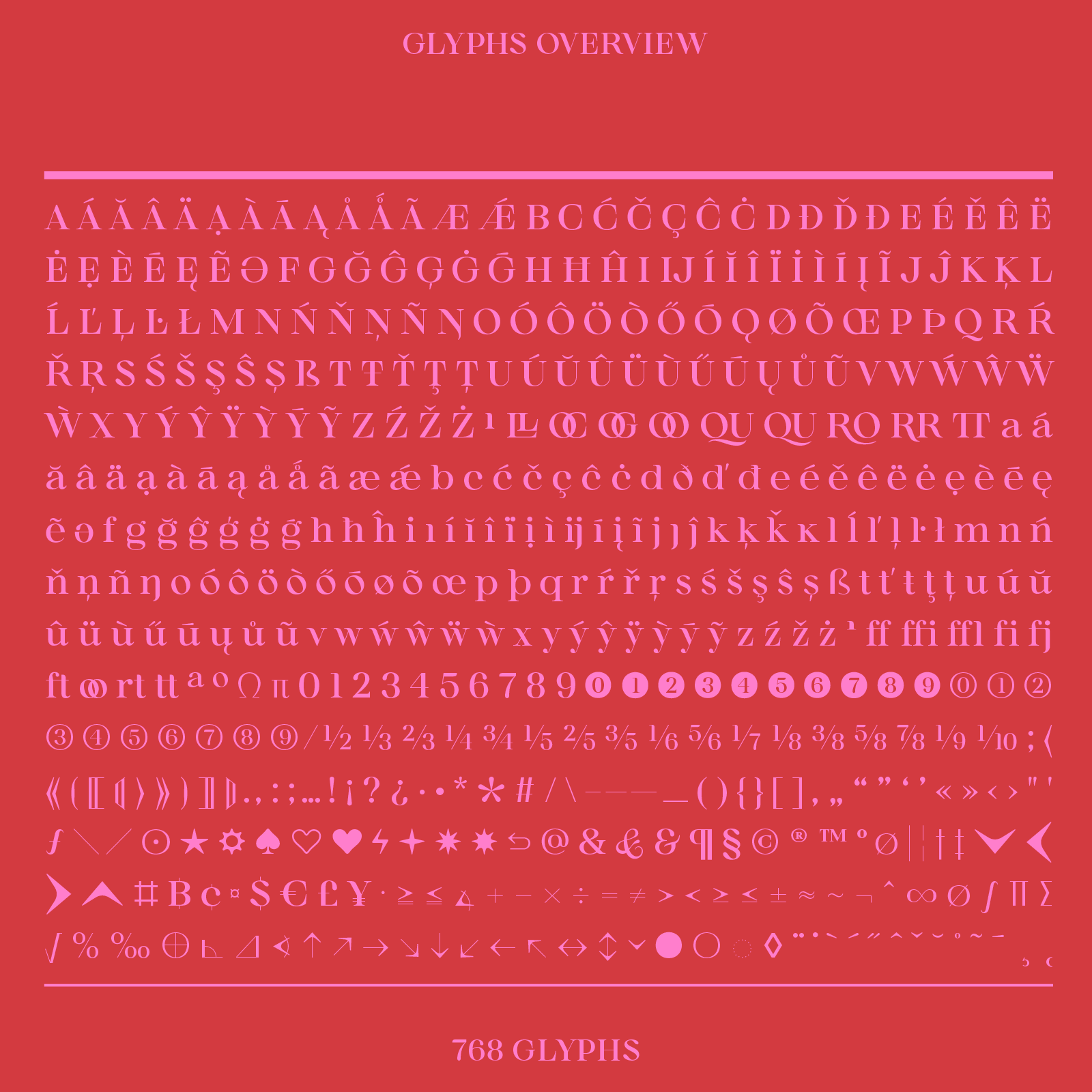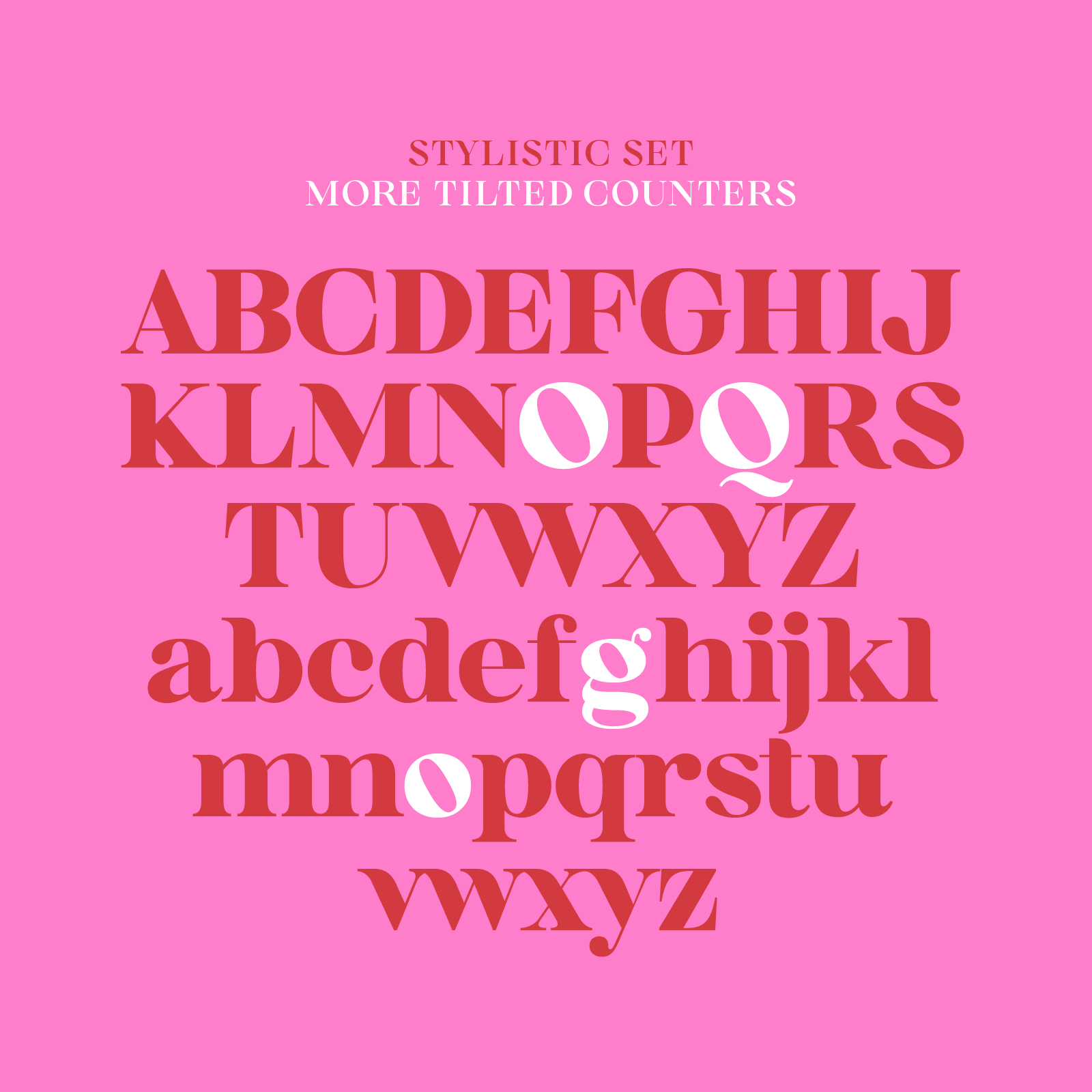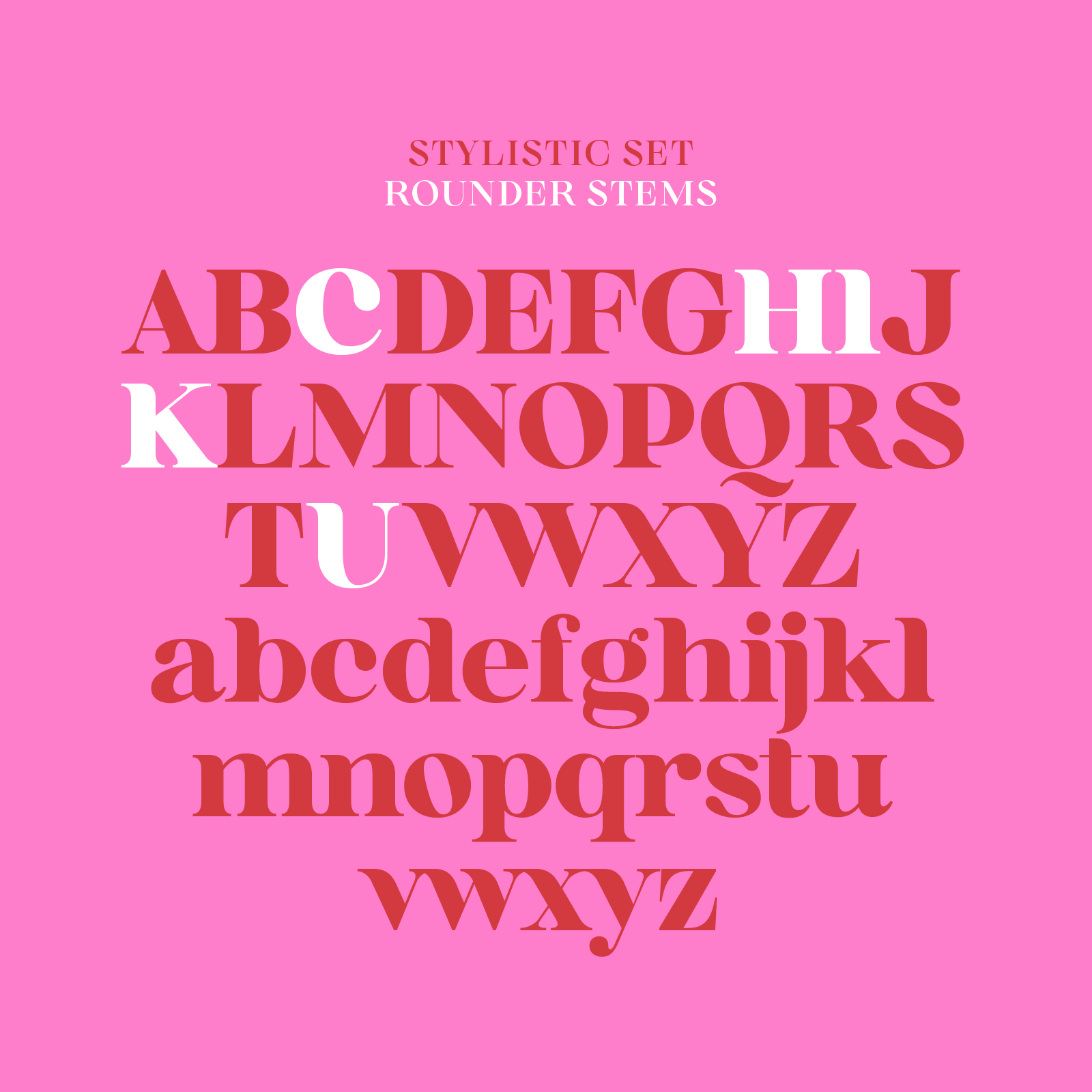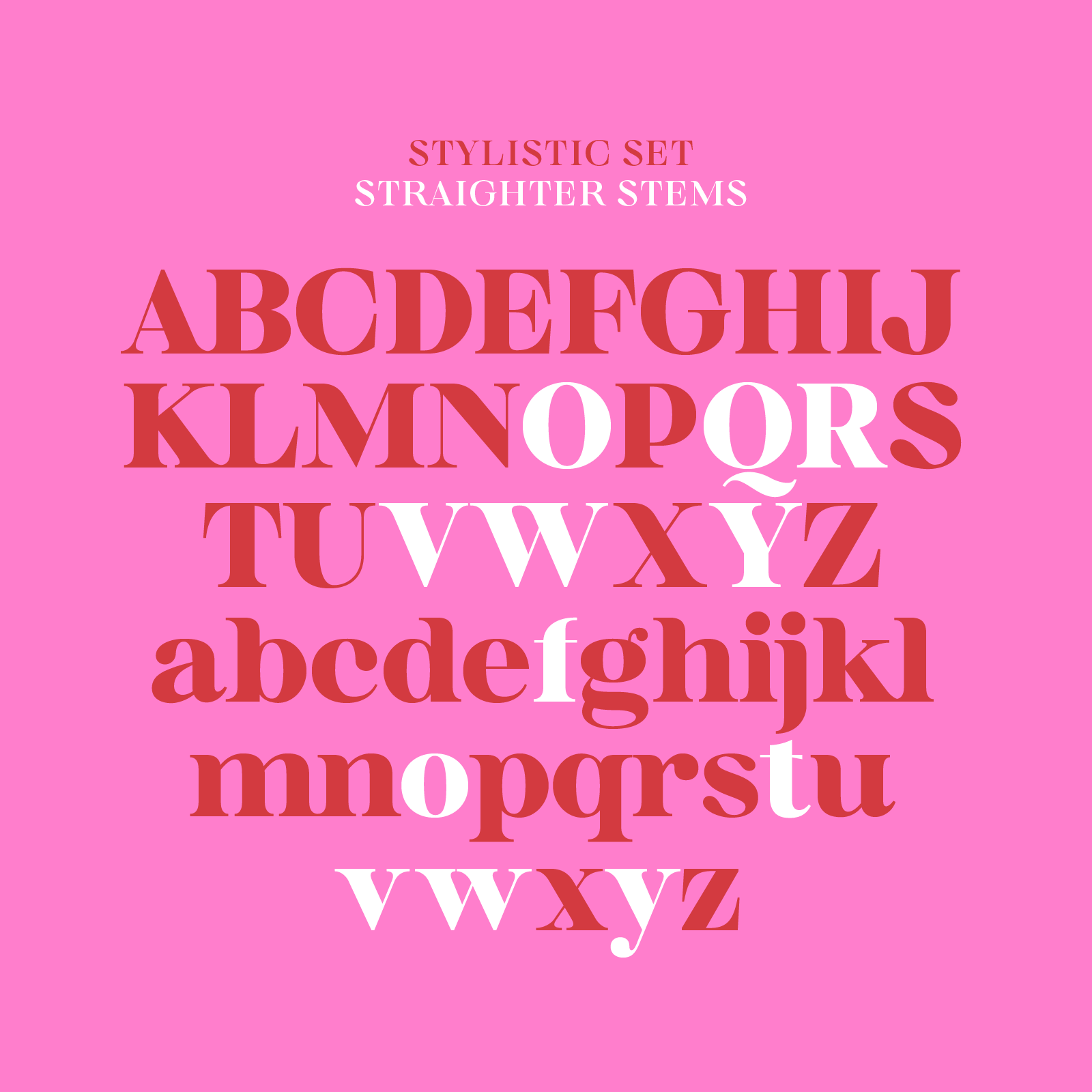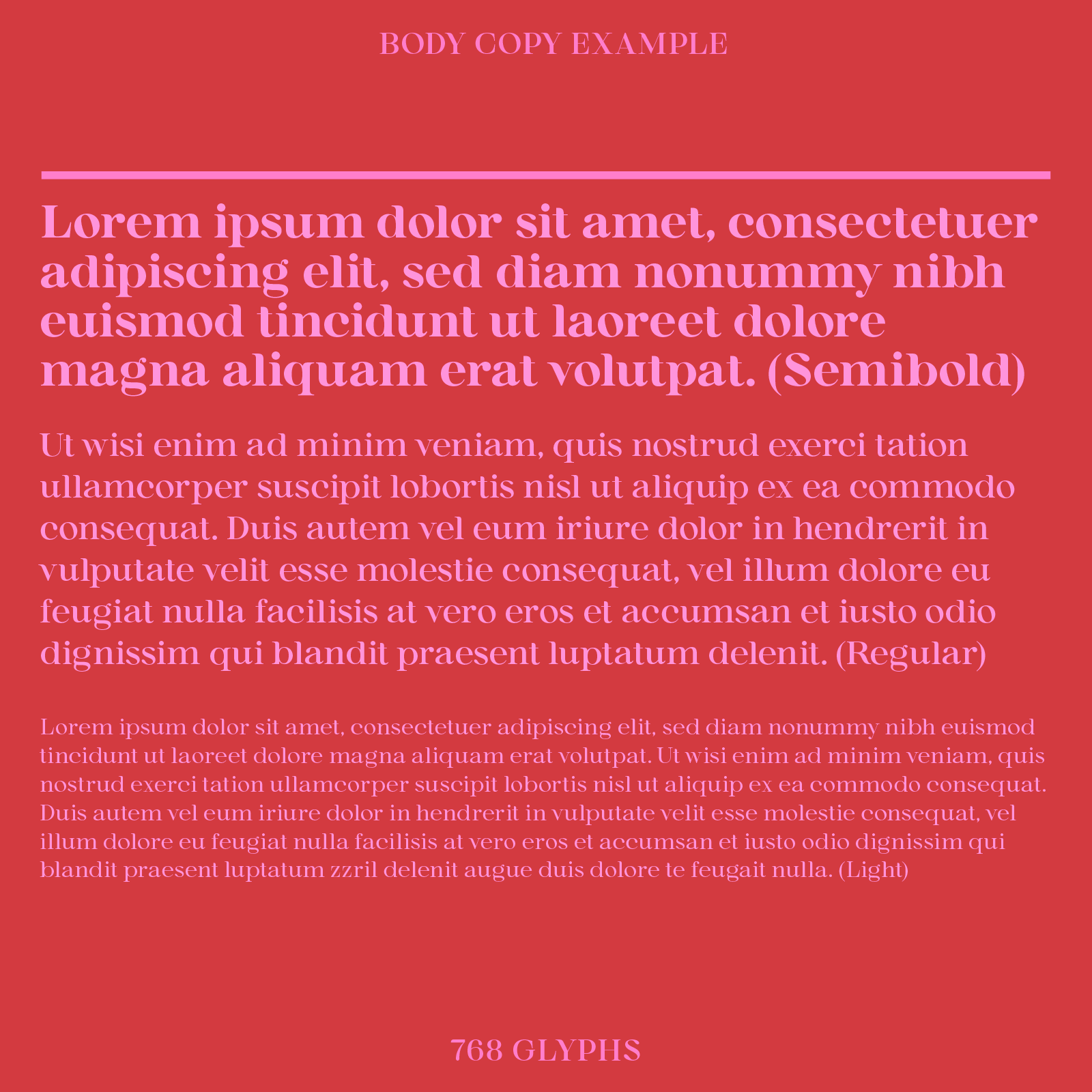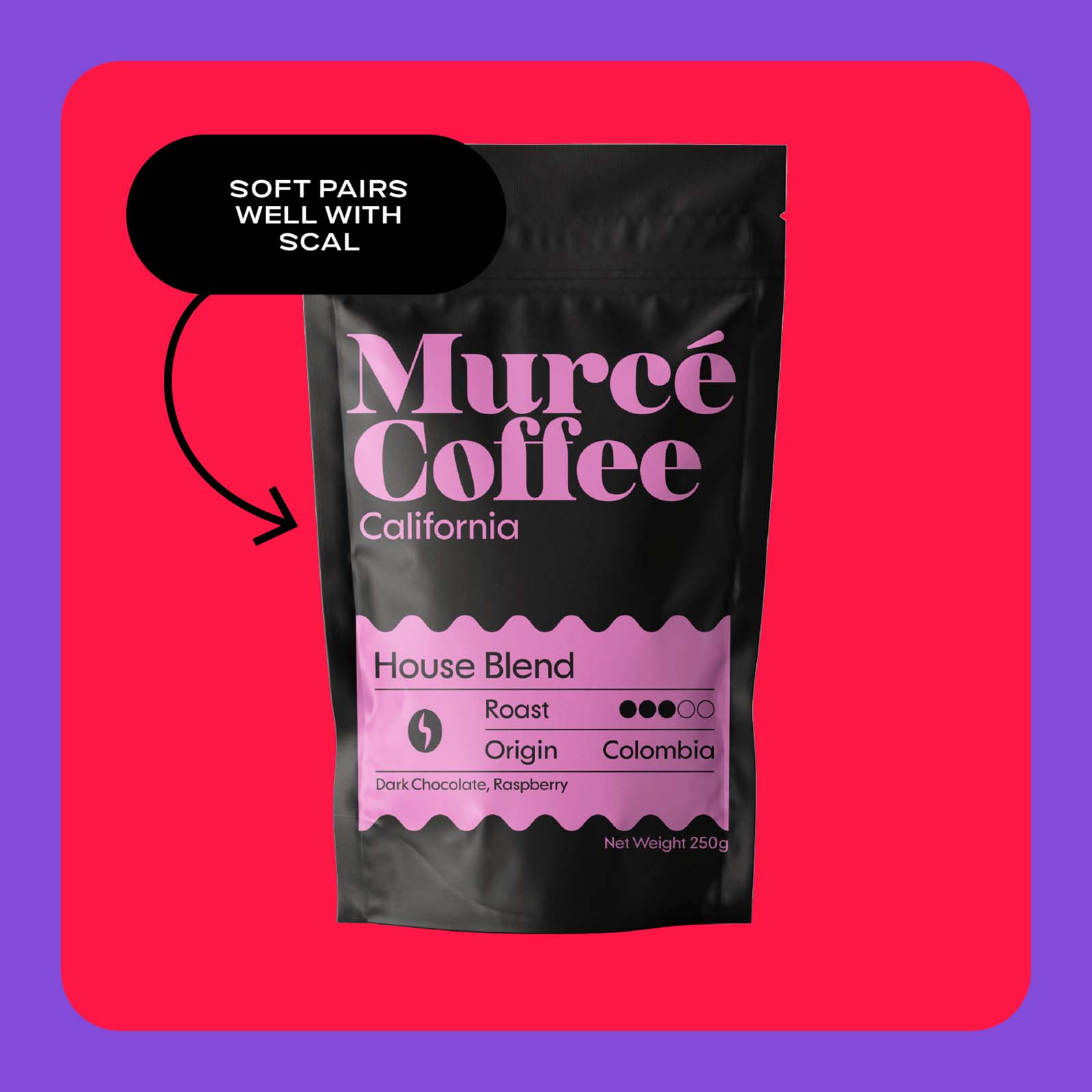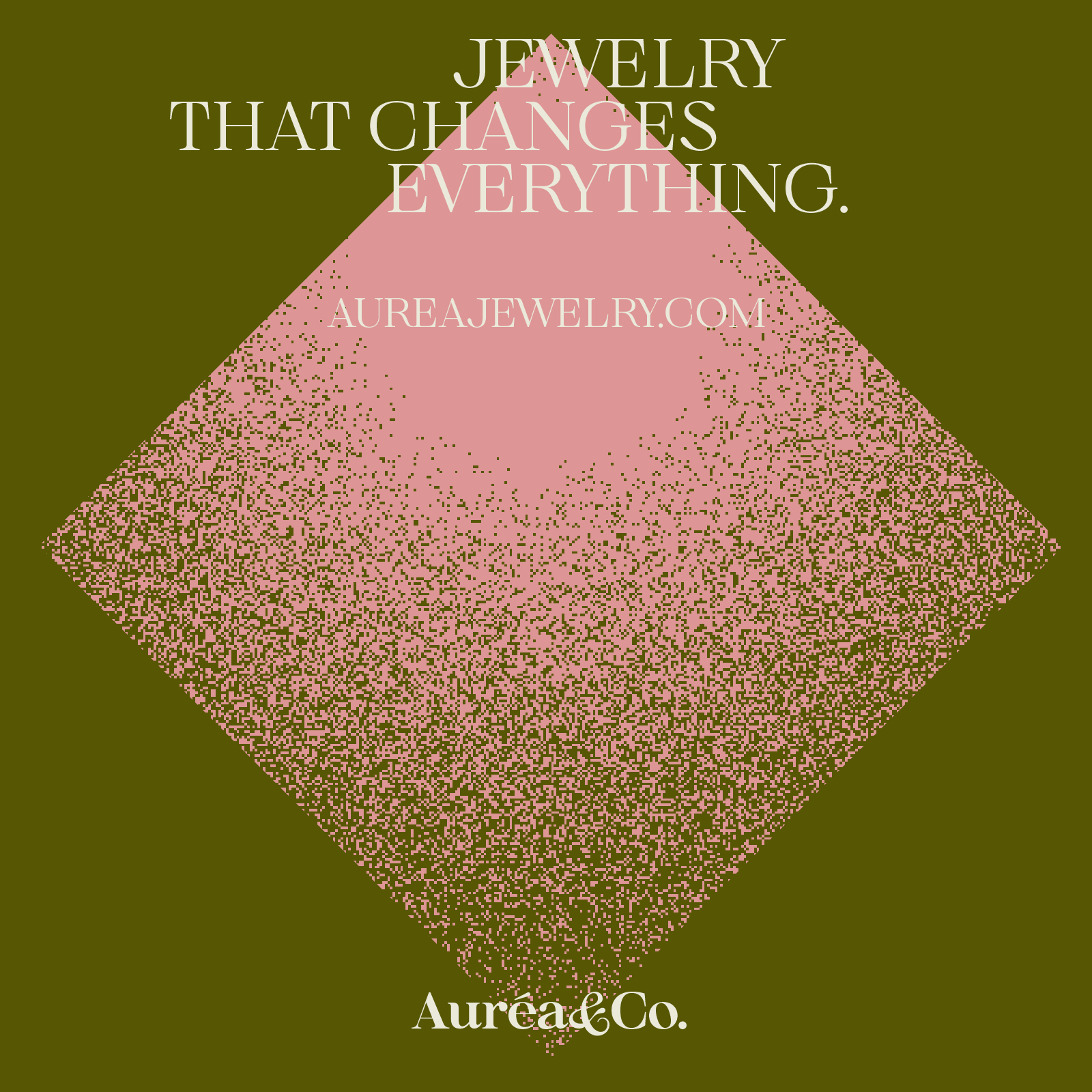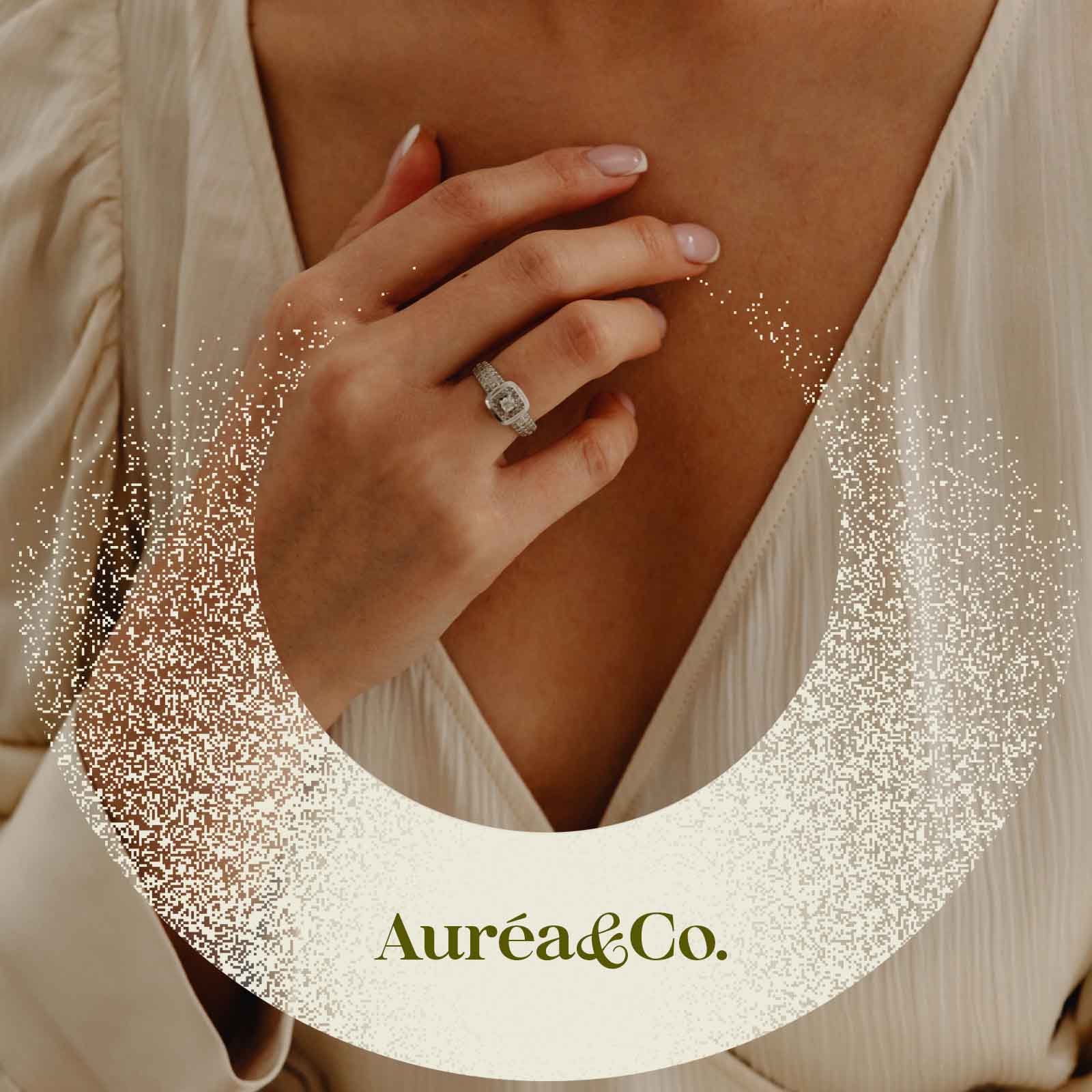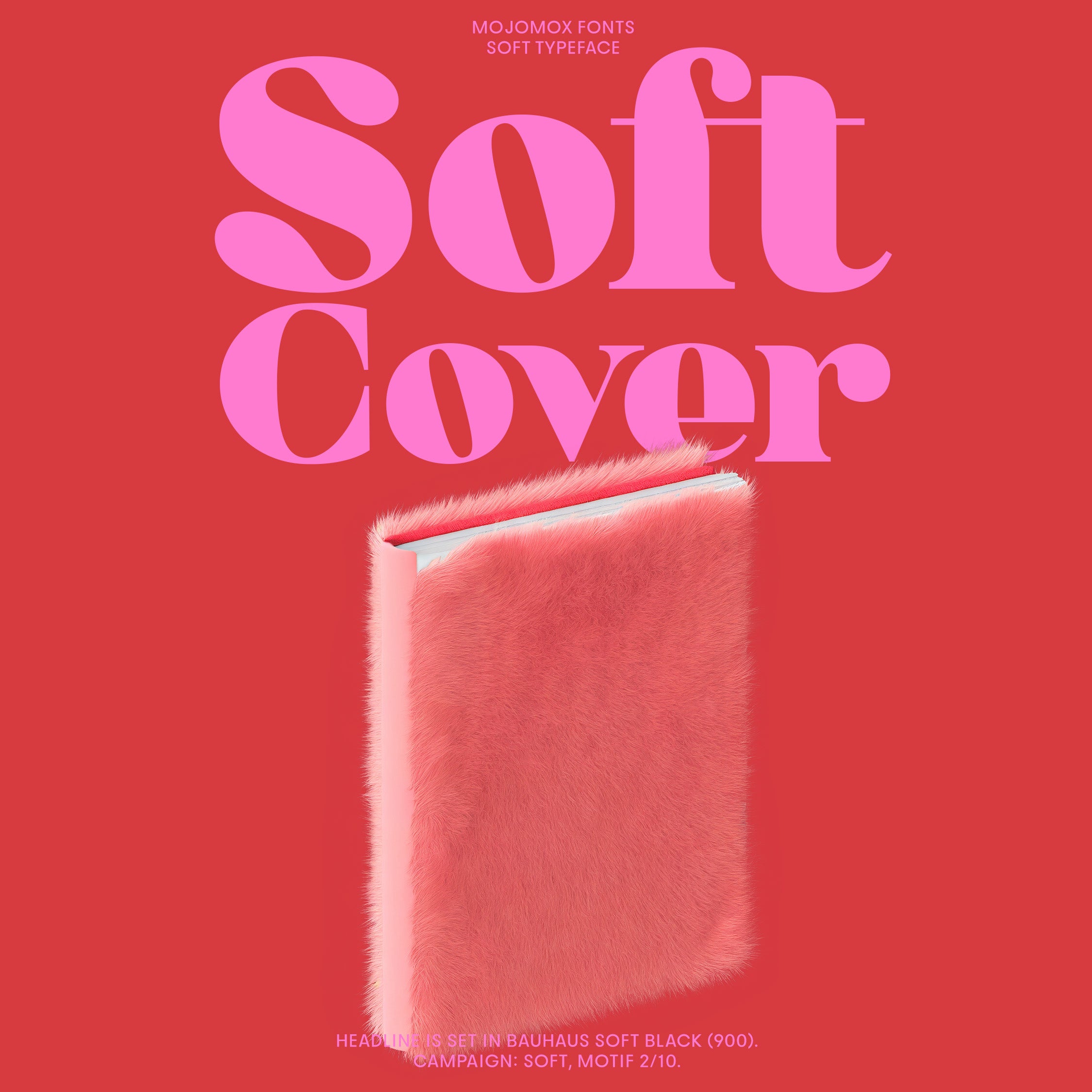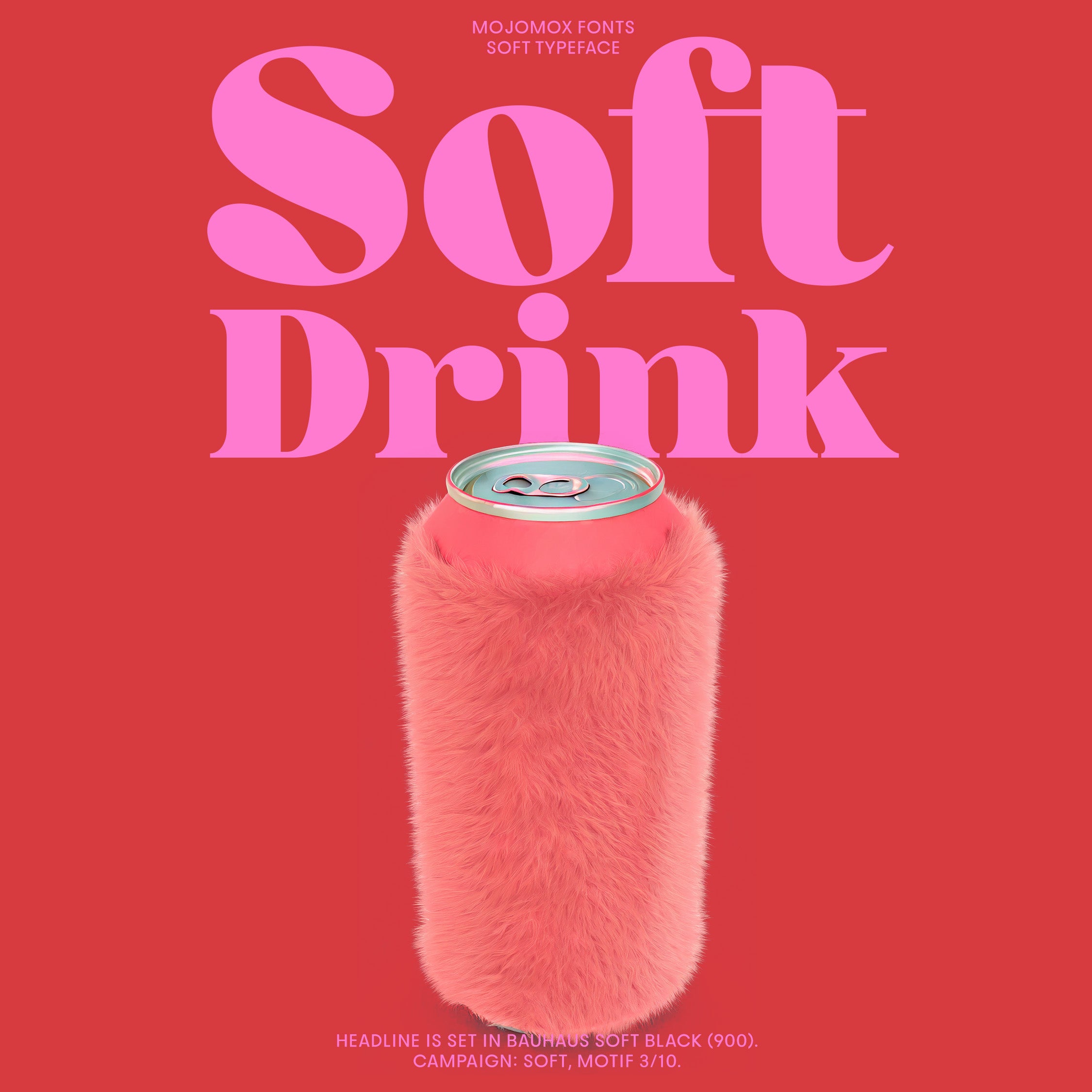
Bauhaus Soft—Bold organic serif font
Bauhaus Soft is a friendly, rounded serif font. Soft has a geometric frame with partially rounded endings. This modern font is perfect for brands that want to communicate elegance with an approachable tone. This serif font family has 9 weights, from Thin to Bold to Black.